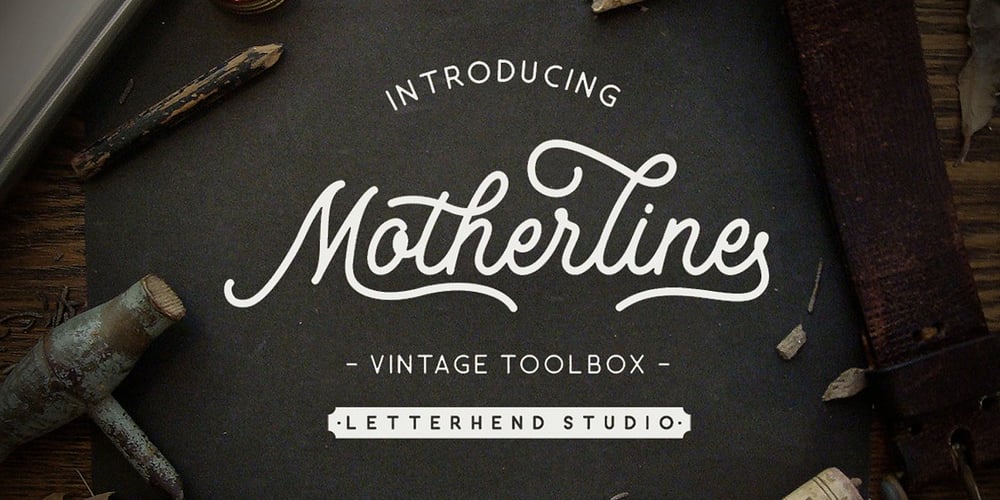
Motherline Font Family was designed by Hendry Juanda and published by Letterhend. Motherline contains 4 styles and family package options. Motherline Reguler : a monoline vintage script typeface which is created based on manual hand lettering with many features such as ligatures, stylistic set alternate, swashes, etc with total 650++ GLYPHS! which is obviously support multi language characters! Provided in both OTF and TTF. Motherline Bold : The bold version of the Motherline Reguler, looks awesome to be used as logotype, badge, emblem which is needed a strong and bold text. Motherline Sans : A complementary sans type font which is perfectly matched with the main font. Motherline Sans Rough : The rough version of the Motherline Sans.